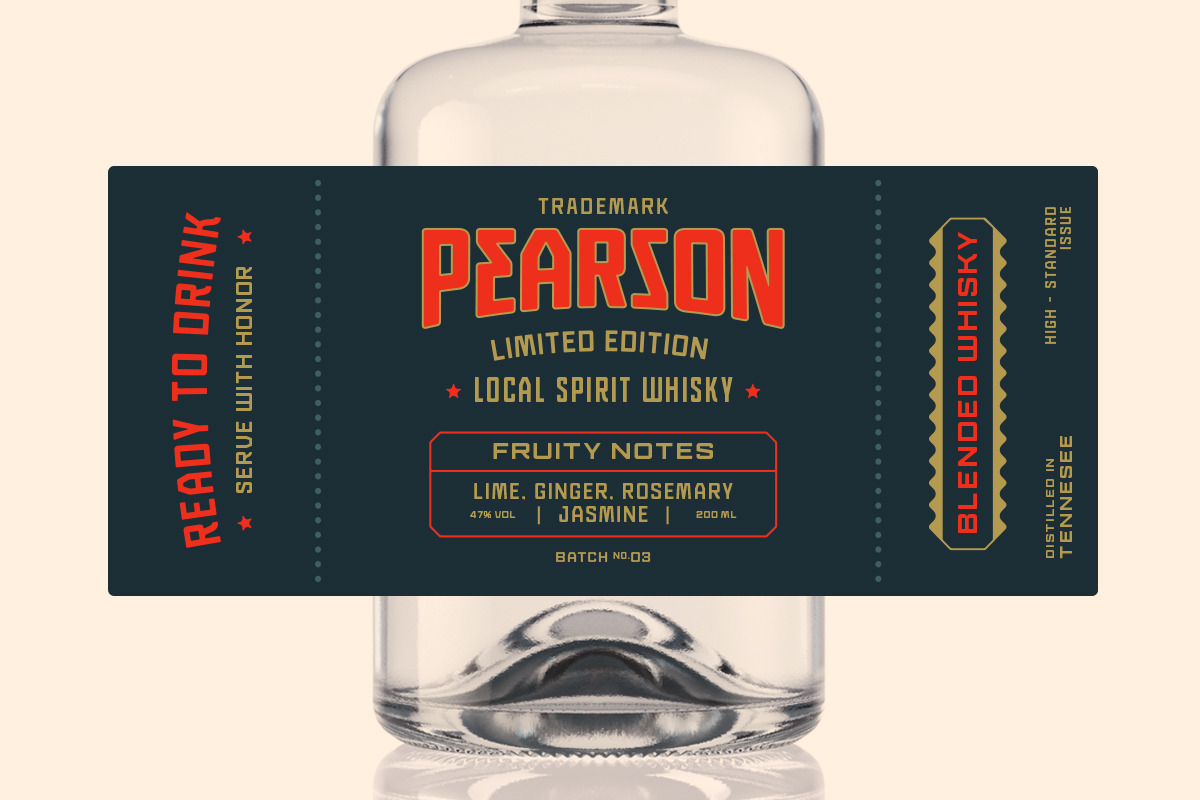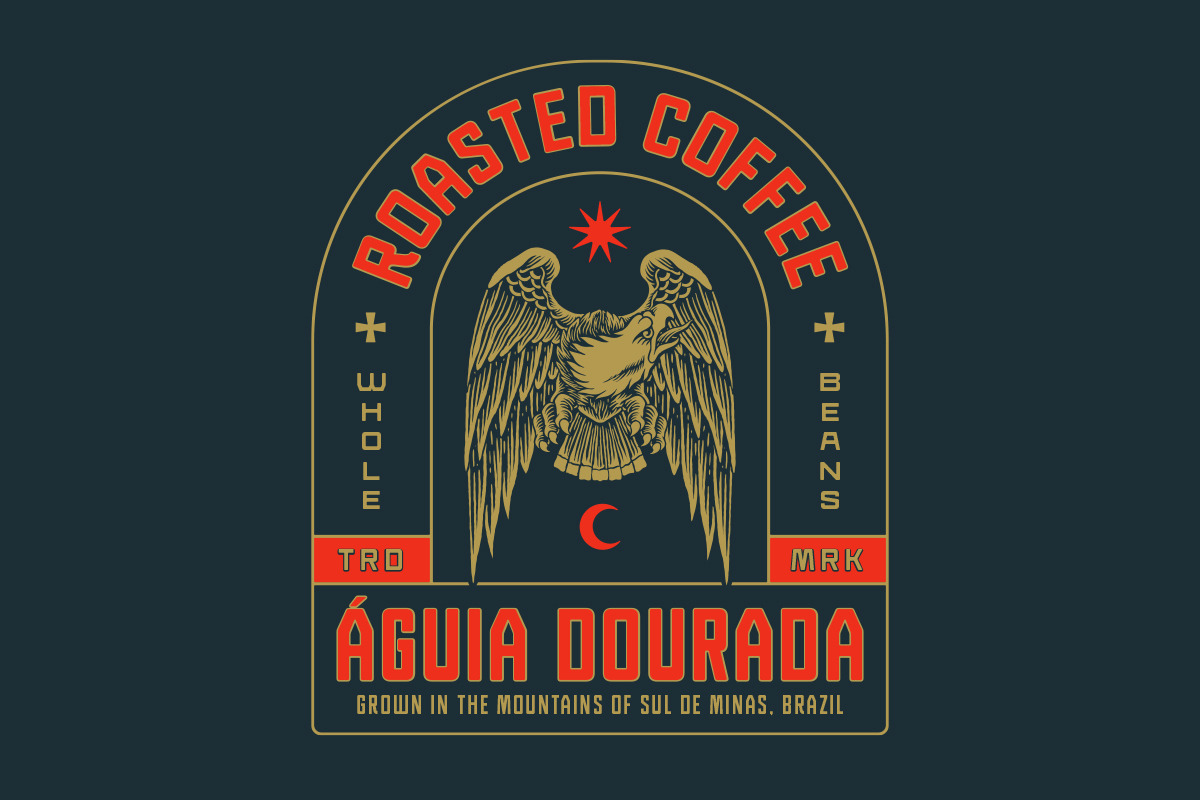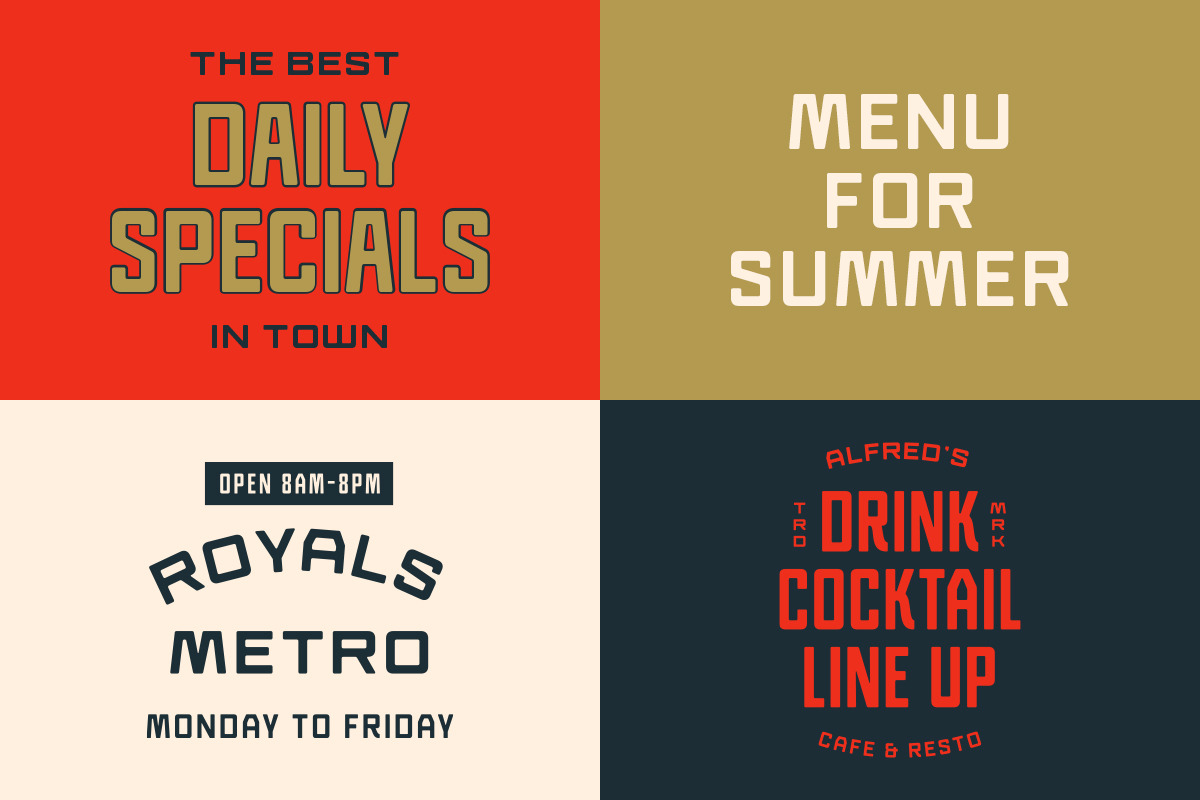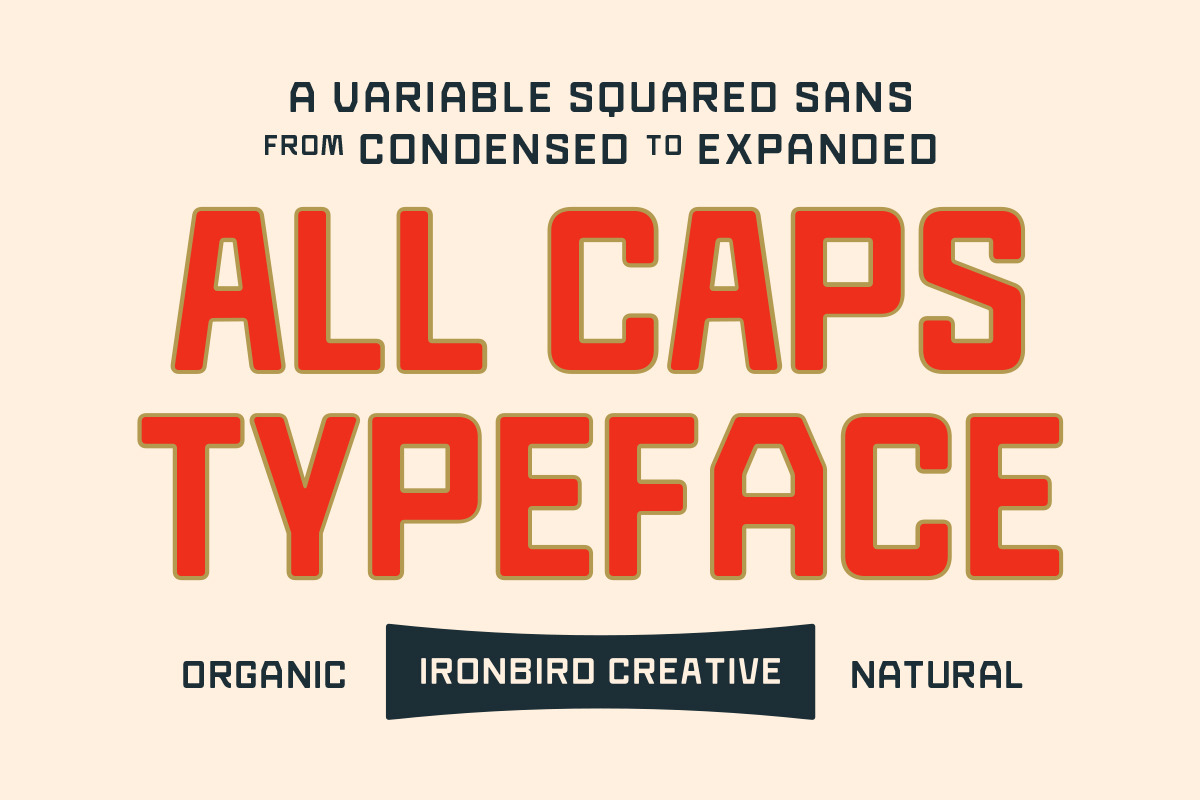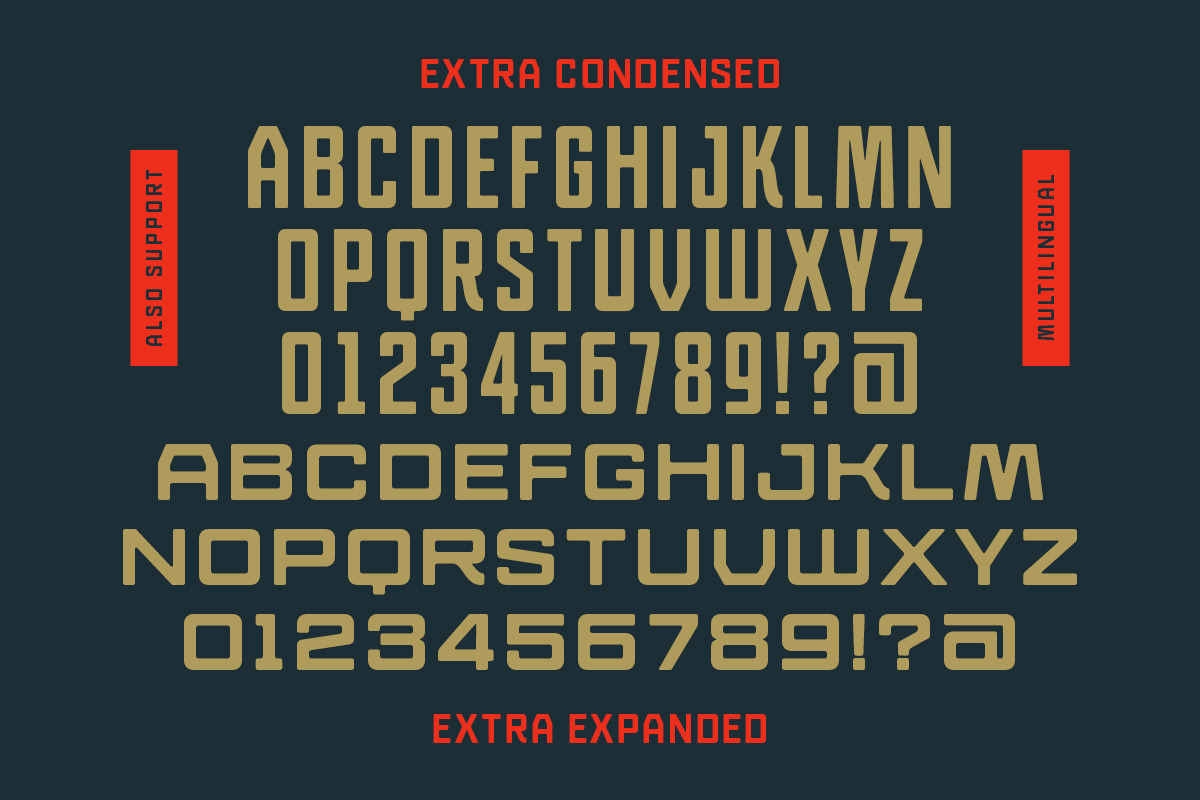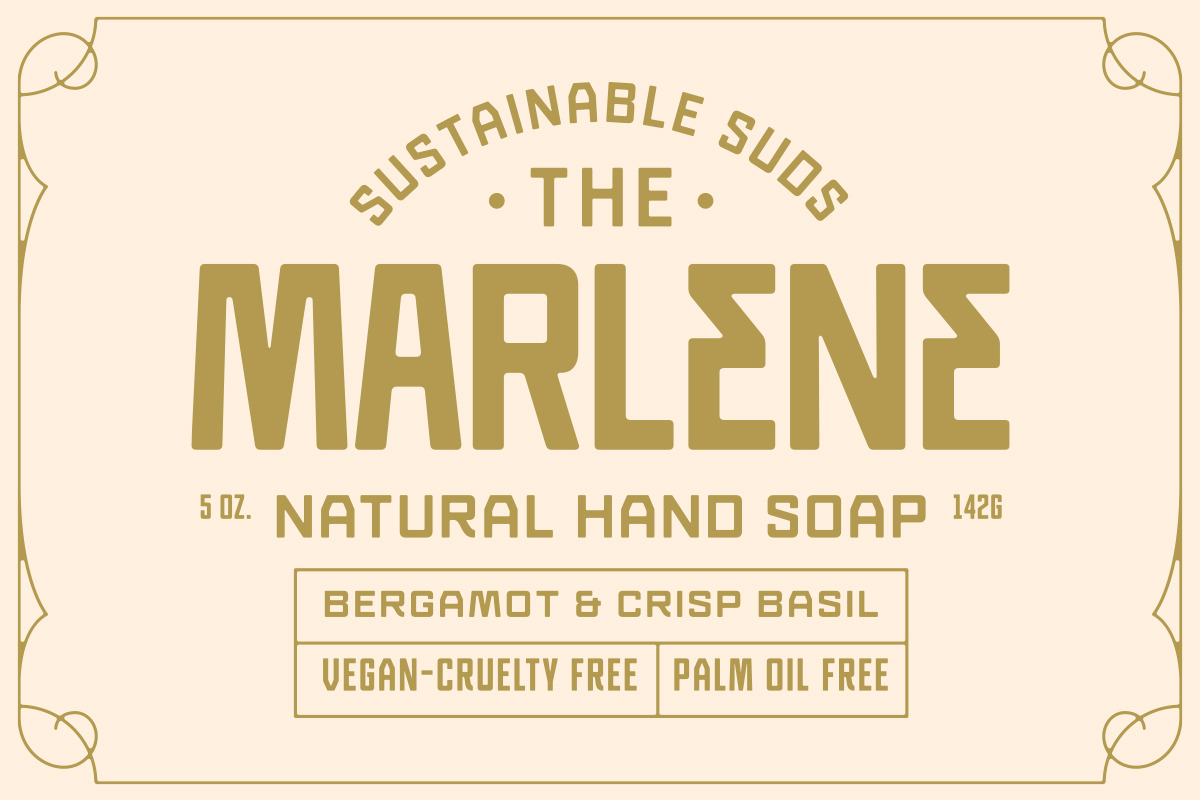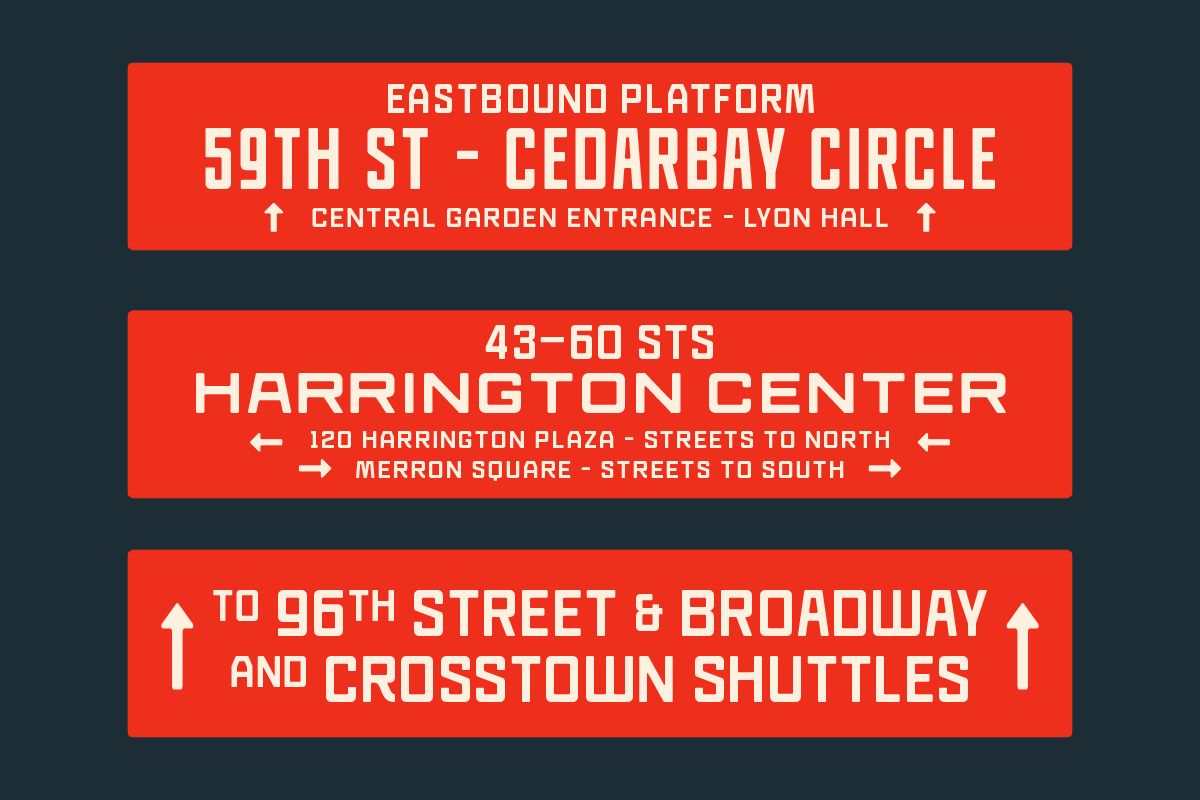
IC Beckons - Variable Squared Sans
IC Beckons is a bold all-caps sans with squared shapes and organic vintage character. Designed for versatility, it features variable width from Condensed to Expanded, making it perfect for labels, packaging, posters, menus, and signage. Its clean geometry meets hand-crafted warmth, giving a strong yet approachable look that works across retro branding, café designs, transport signs, and whiskey labels.
- All Caps Typeface
- Variable Width (Condensed → Expanded)
- Uppercase + Numbers + Punctuation
- Clean, Organic, and Geometric Feel
- Perfect for Labels, Menus, Packaging, Posters, and Logos